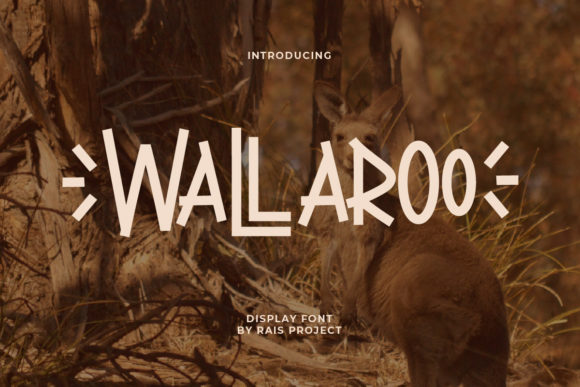
Meet Wallaroo, the display font that oozes individuality and creative flair. This innovative font, crafted by the ingenious RaisProject, is not merely a collection of letters—it's a gateway to a world of captivating designs.
Wallaroo's bold, casual persona shines through in every stroke, making it the perfect choice for those seeking to make a statement. Its unique charm is undeniable, captivating the hearts of designers and inspiring them to create masterpieces that leave an unforgettable mark.
Unleash your imagination and let Wallaroo guide you through a realm of endless possibilities. From logos that demand attention to posters that ignite conversations, Wallaroo's versatility knows no bounds. Its innate ability to elevate ordinary designs into extraordinary works of art is simply breathtaking.
Let Wallaroo be your muse, your loyal companion as you embark on a journey to create designs that resonate with audiences. Whether you're crafting letterheads that exude professionalism or movie titles that promise an unforgettable cinematic experience, Wallaroo will lend its distinctive voice to your creations, ensuring they stand out from the crowd.
Step into a world of limitless creativity with Wallaroo, the display font that empowers you to express your individuality and leave an indelible mark on the world of design.